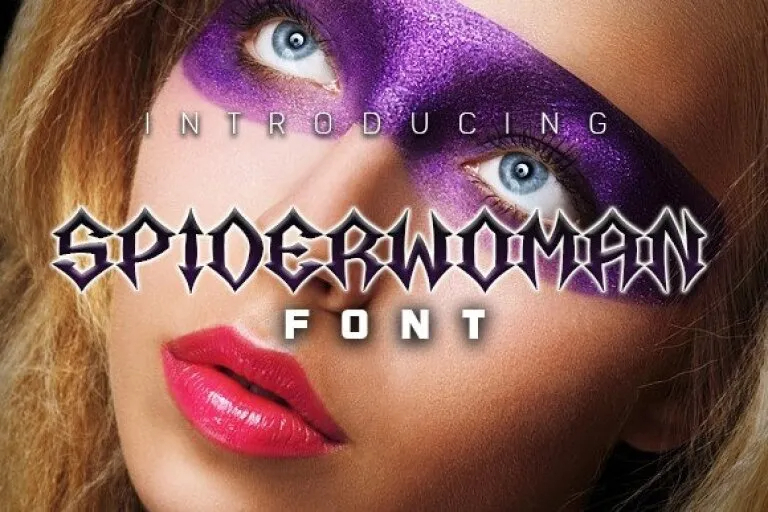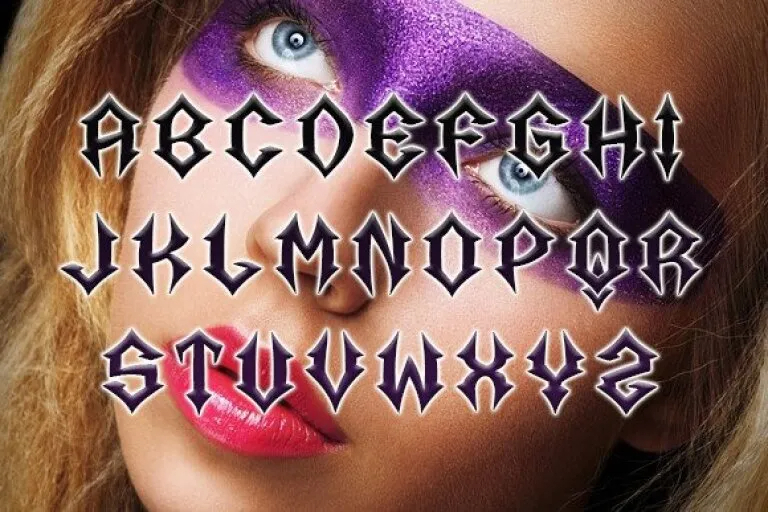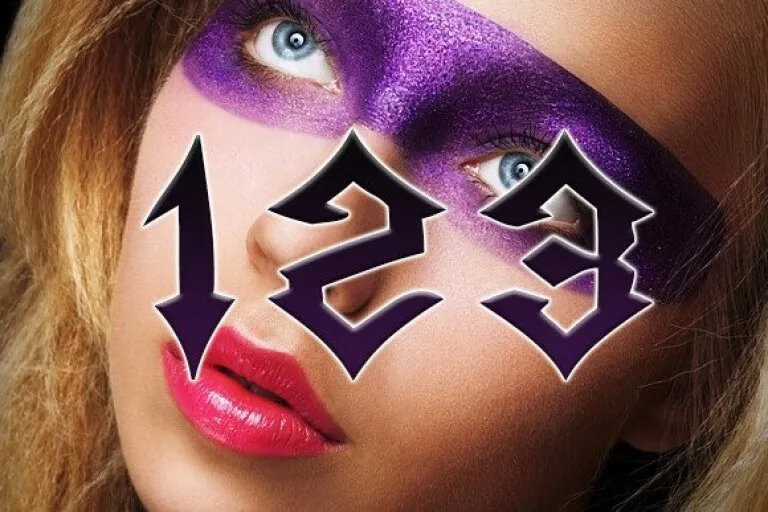
About Spiderwoman Font
Spiderwoman is an awesome Gothic typeface that will look great on any of your designs. Use this font for postcards, flyers, and much more.